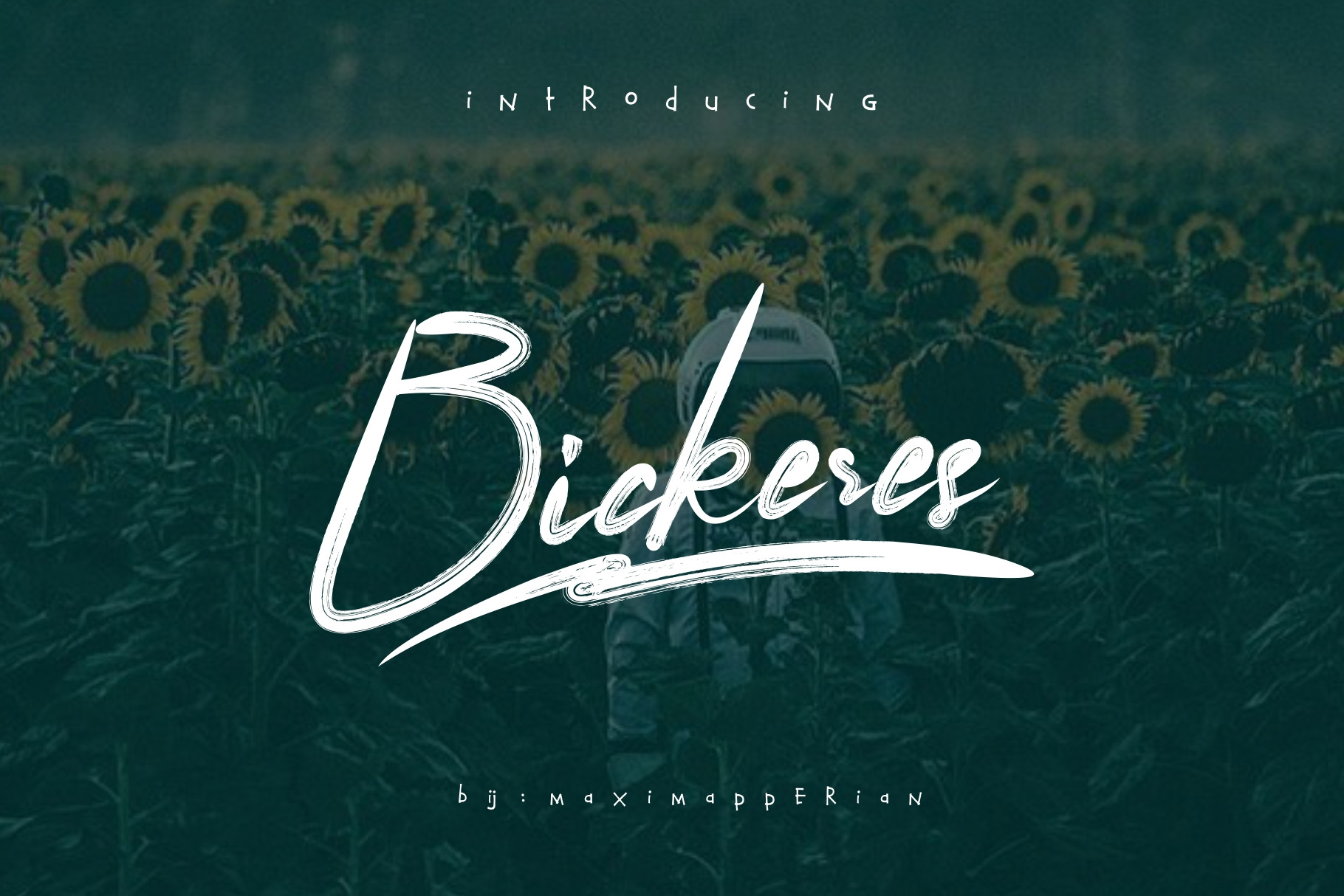
Bickeres Brush Font
Give your designs an authentic handcrafted feel. “Bickeres Brush” is perfectly suited to stationery, poster, busuness card, logos and much more